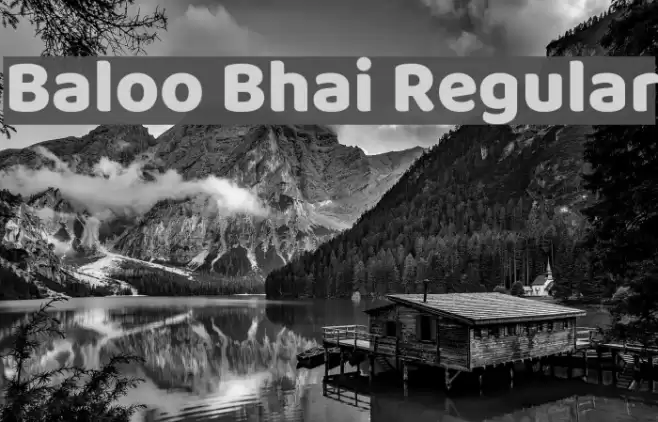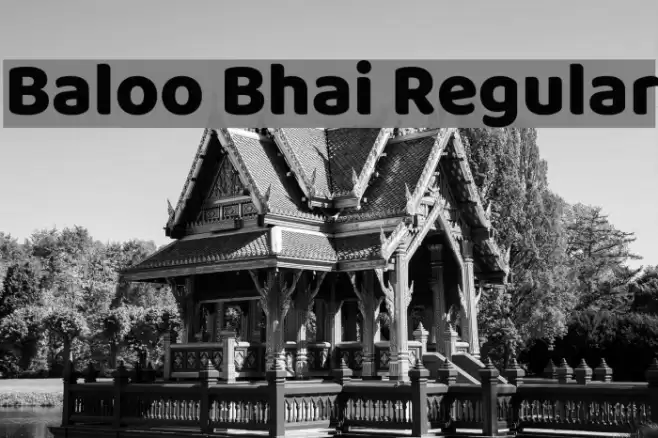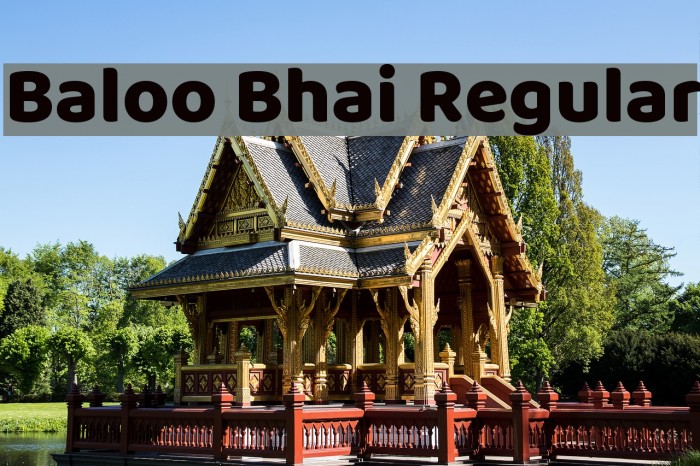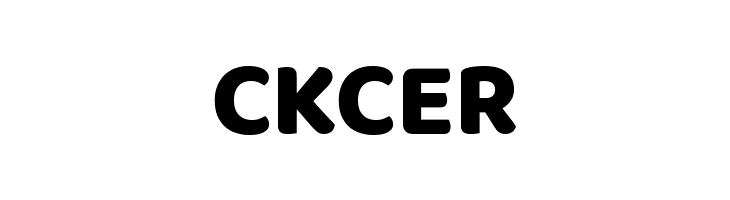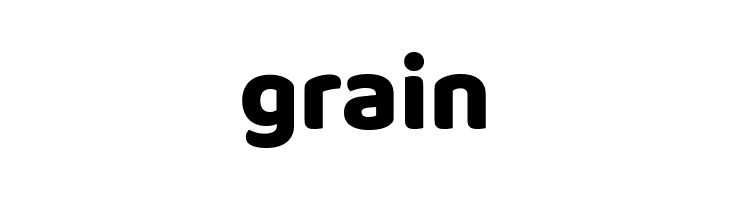
Baloo Bhai Regular Font
Baloo Bhai Regular Description
This font features a playful and rounded design, characterized by its bold and friendly appearance. The letters are thick and have a smooth, curvy structure that gives off a warm and inviting feel. The rounded edges and uniform stroke width contribute to its approachable style, making it suitable for a variety of informal and fun applications. The font maintains a consistent weight throughout, providing a balanced and cohesive look. Its simplicity and clarity ensure readability, even at smaller sizes, while the rounded forms add a touch of whimsy and charm.
A bold, rounded, and playful font with a friendly and approachable style from Uncategorized fonts.
- Proposed Projects: Ideal for children's books, playful branding, casual invitations, and educational materials.
- Overall Style: Playful
- Use Case: Headlines, Logos, Informal Texts